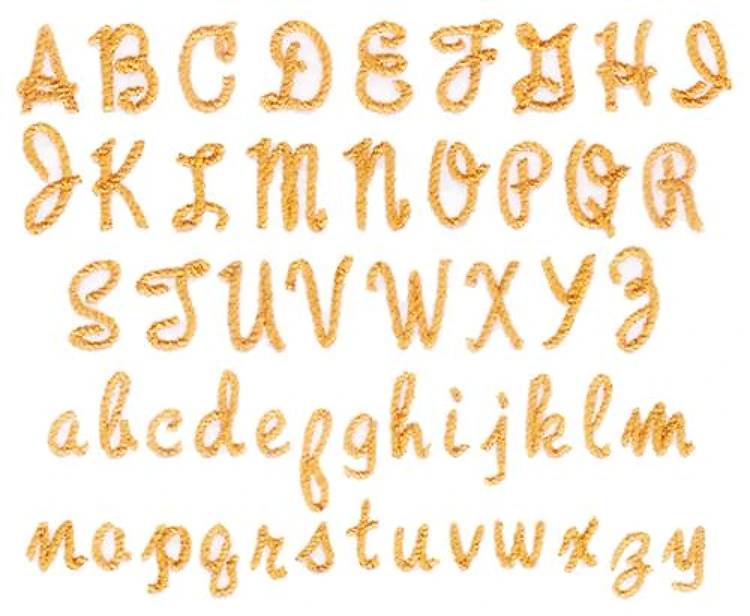
Starbird Inc is happy to present Rope Font machine embroidery font which has Rope-like machine embroidery font with a playful, twisted appearance, ideal for casual projects on backpacks and beach towels. Available in PES, DST, and 10 other formats. included. If you would like to view more embroidery fonts and alphabets please search our embroidery fonts page.